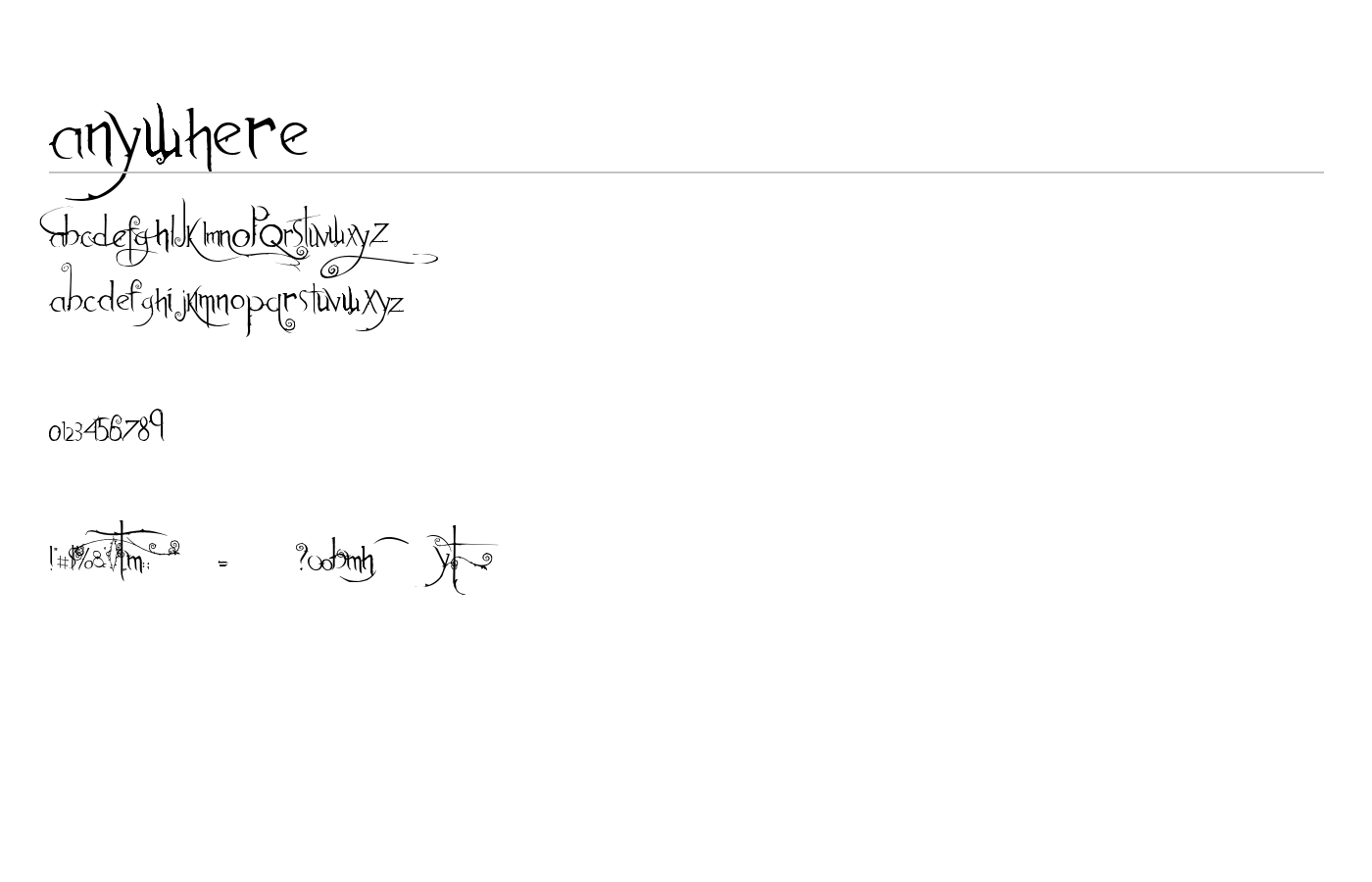
Anywhere Font is an elegant, hand-drawn script with delicate, swirling strokes and tall, narrow letterforms that give it a whimsical, artistic feel. Its intricate details and fine lines make it ideal for decorative uses such as invitations, branding, or creative projects where a unique, refined touch is desired rather than large blocks of text. This font brings a sense of sophistication and fantasy, perfect for designs seeking to convey creativity and individuality.
Anywhere Font
About Anywhere Font
| Font family | Anywhere Font |
| Designer | GyakuSetsu |